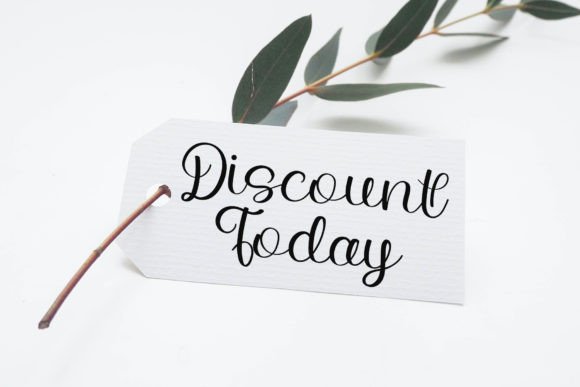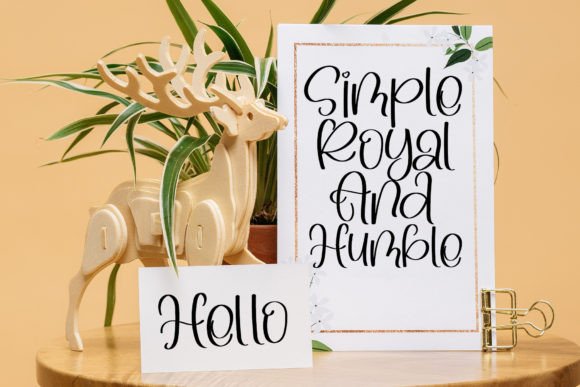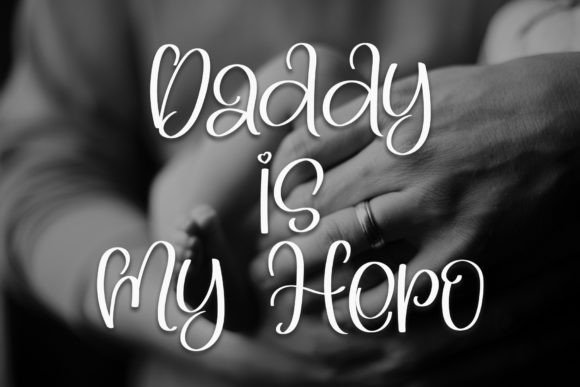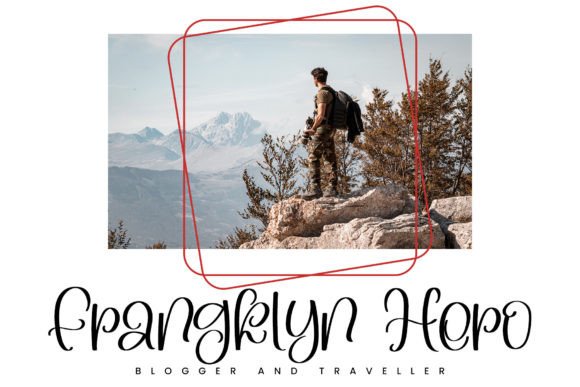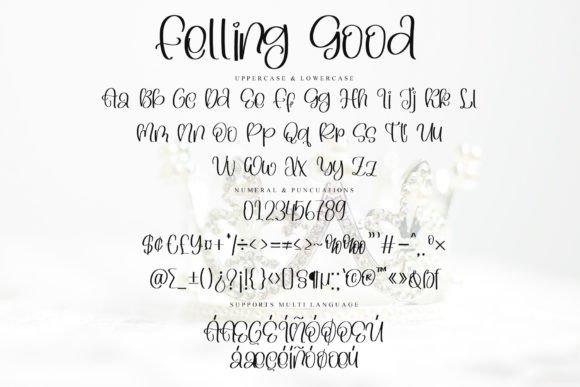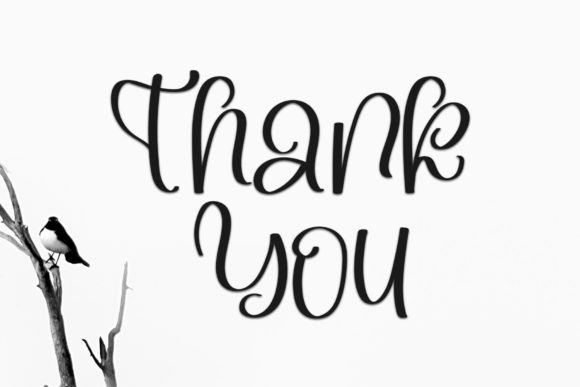
Princess Font
About Princess Font
Princess is not just a font; it’s a delicate and elegant handwritten typeface that exudes a sense of sophistication. With distinct and well-balanced letters, Princess stands out as a masterpiece that captures attention and adds a touch of refinement to your creative projects. Its versatility makes it a valuable asset for a wide range of design applications, allowing you to create spectacular and visually captivating designs.
The delicate and elegant nature of Princess is a key feature that contributes to its charm. The intricately crafted letters showcase a fine balance of design elements, making each character a work of art. This delicate quality is particularly valuable for projects that demand a touch of grace and visual finesse.
The well-balanced letters in Princess create a harmonious and pleasing aesthetic. The font becomes a visual symphony, ensuring that each character complements the others, contributing to the overall balance and beauty of the text. Princess becomes a reliable choice for projects that require clarity and visual appeal.
The versatility of Princess’s style is a standout feature. It adapts effortlessly to a wide range of design projects, allowing you to explore various creative ideas. Whether you’re working on invitations, branding, or any other application, Princess adds a layer of sophistication and elegance to your designs.
In summary, Princess is more than just a font; it’s a design masterpiece that adds a delicate and elegant touch to your creative projects. Its well-balanced letters, intricate details, and versatile style ensure that it complements a wide range of designs, allowing you to create outcomes that are both refined and visually stunning.